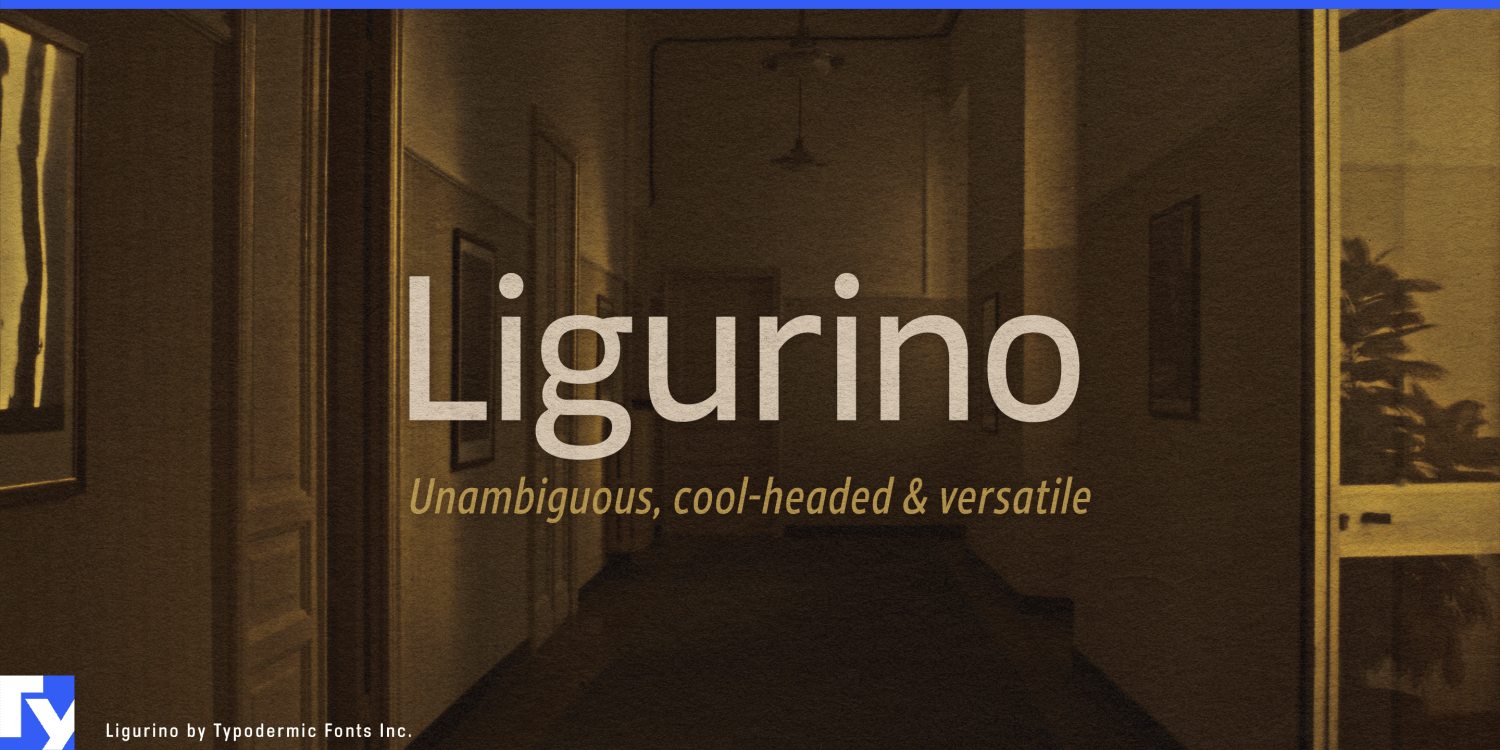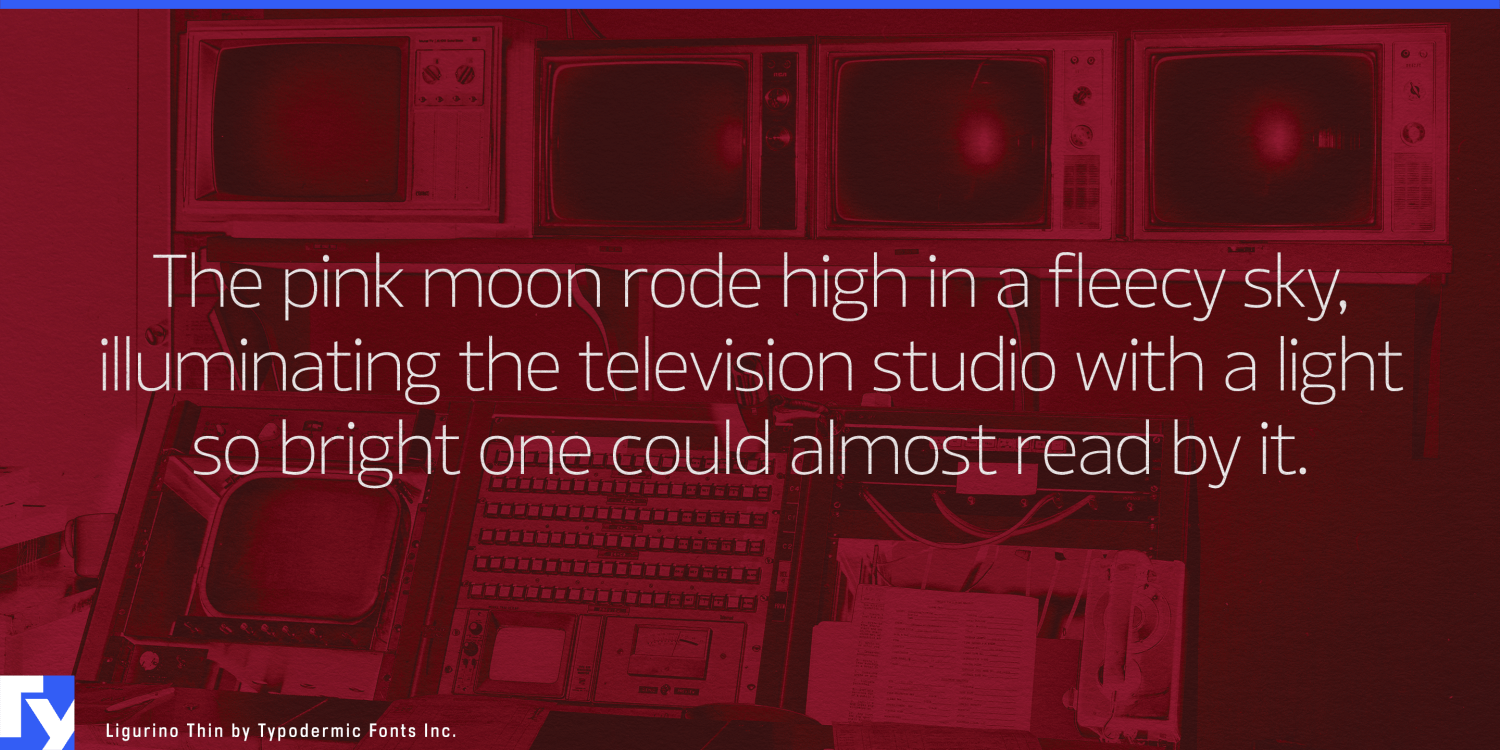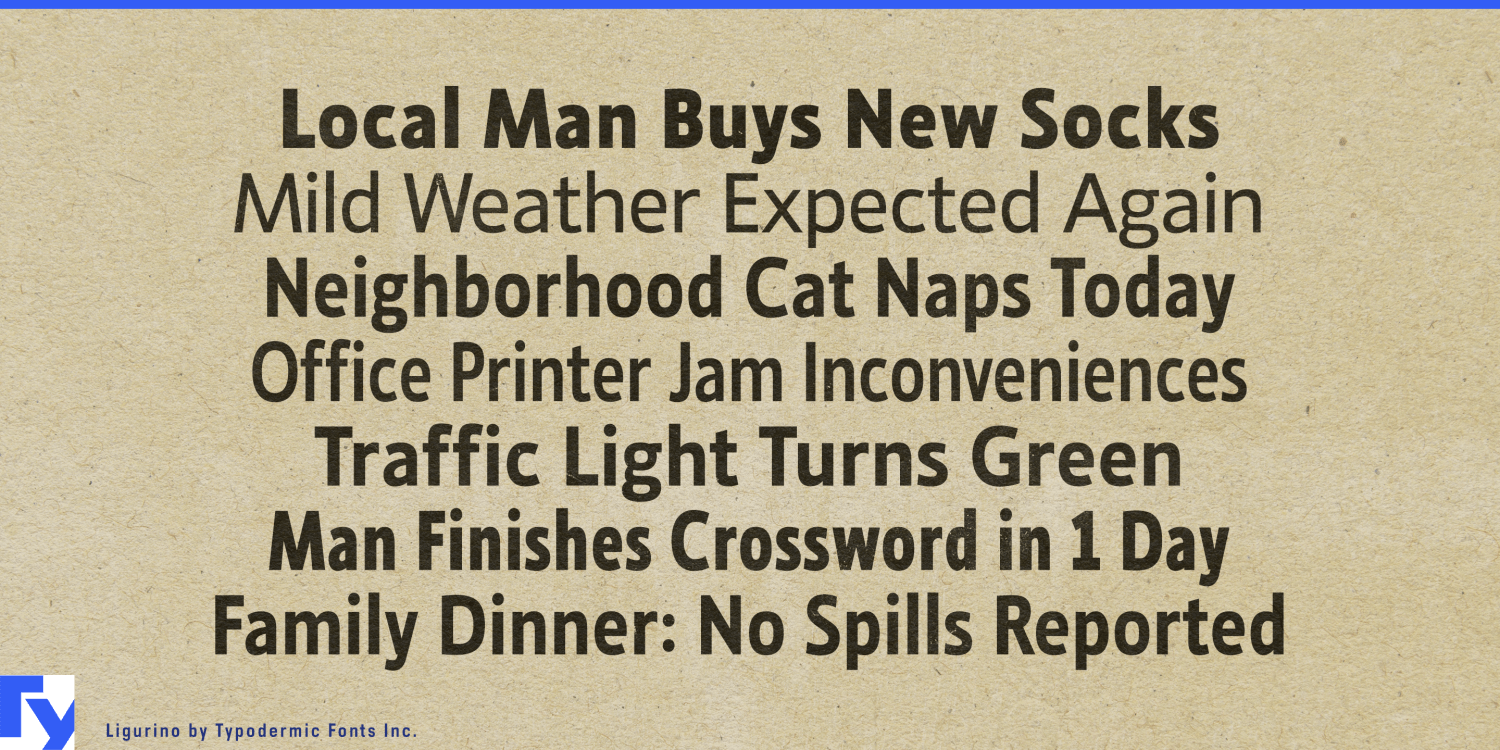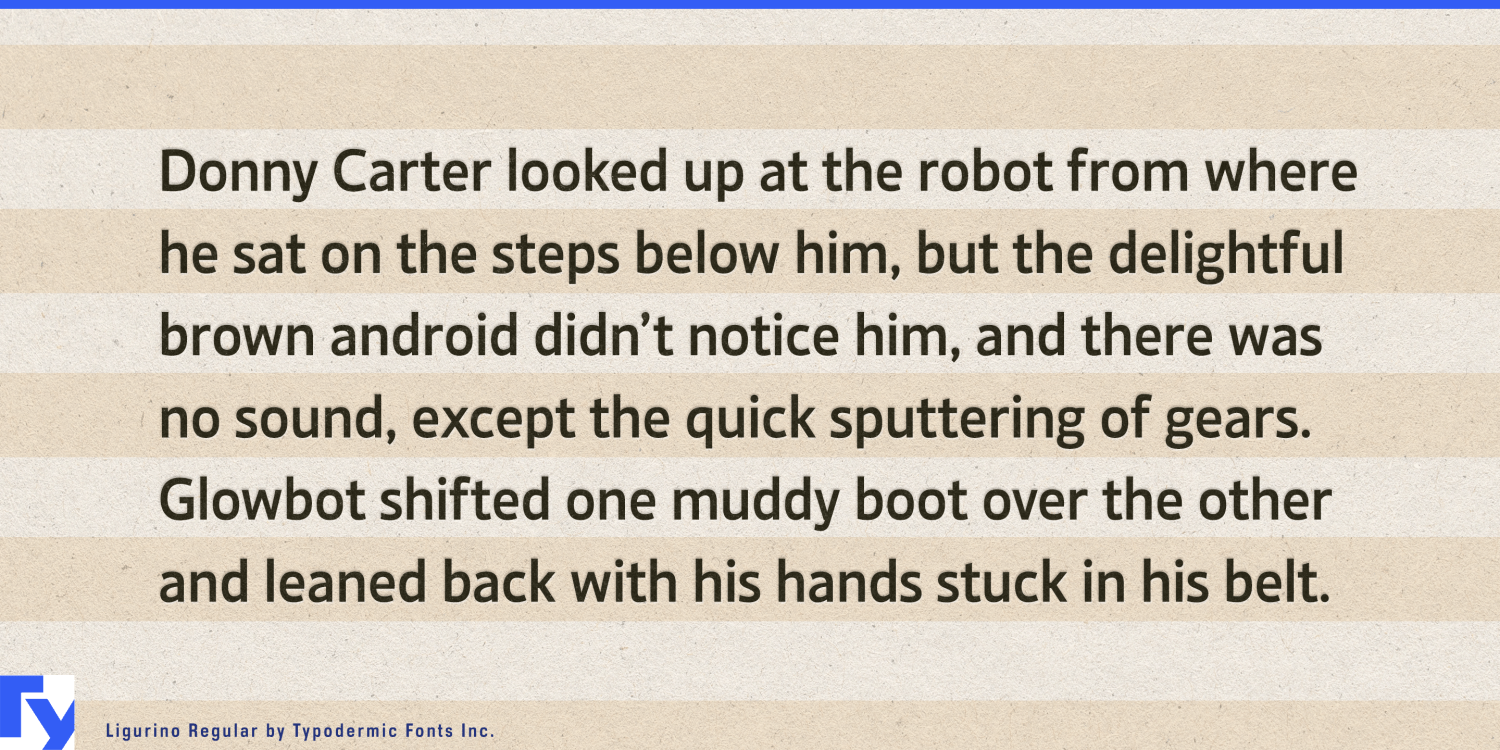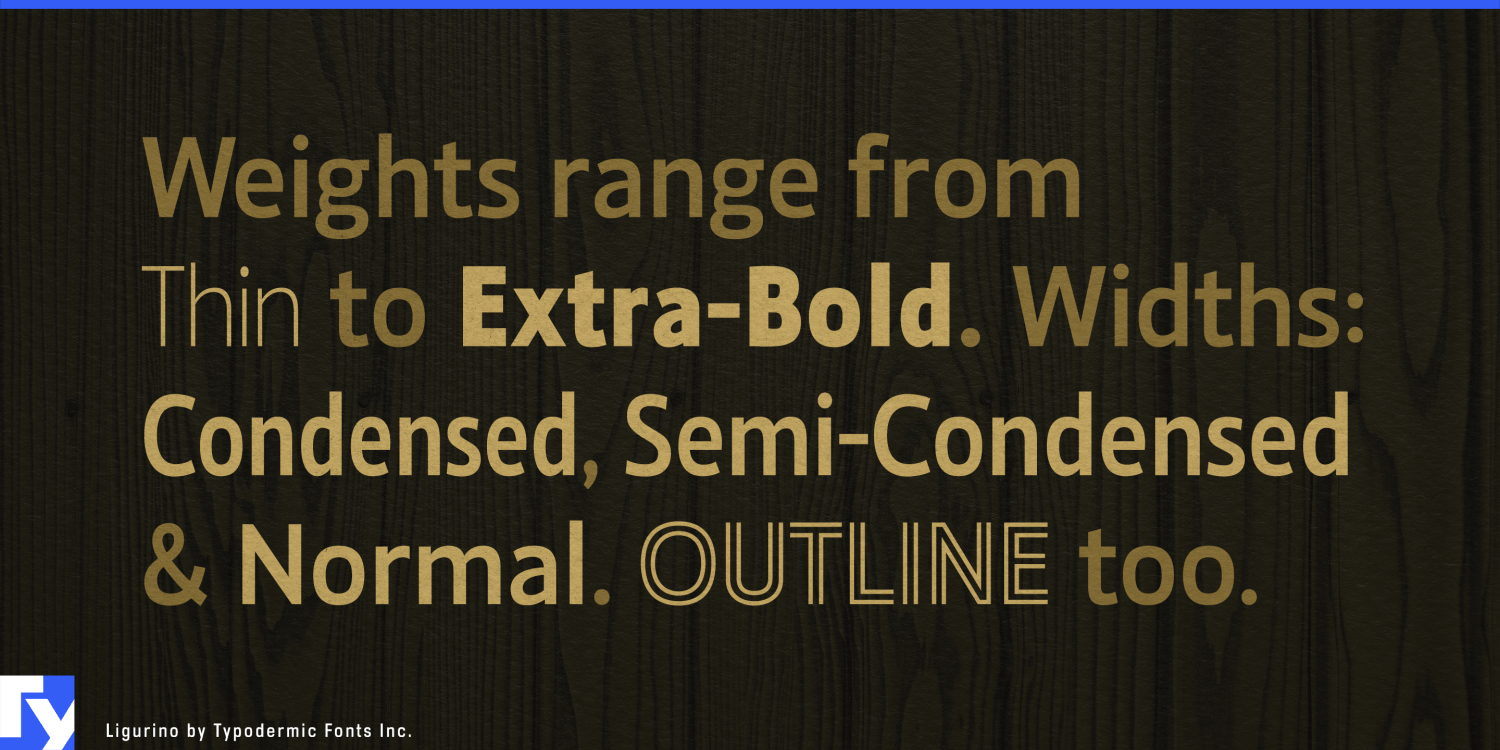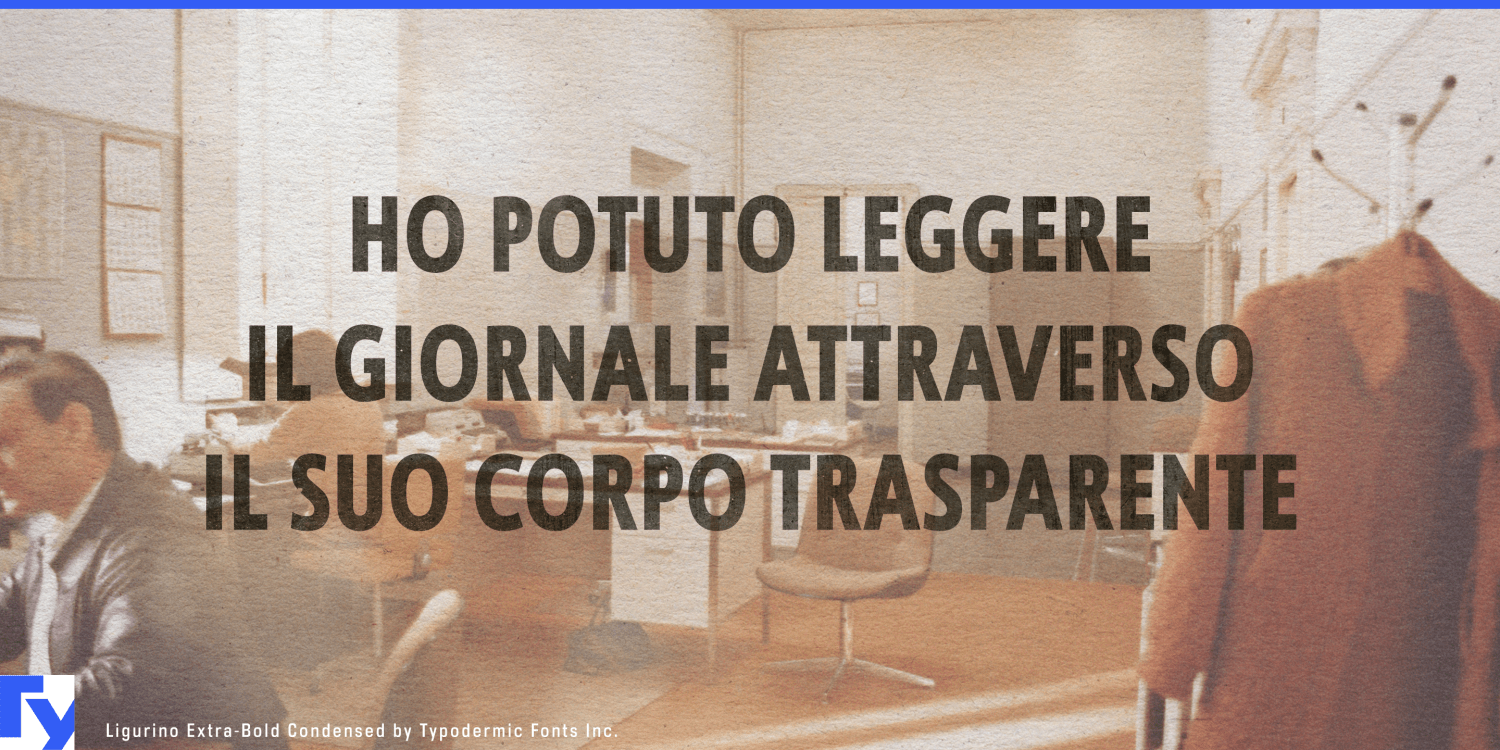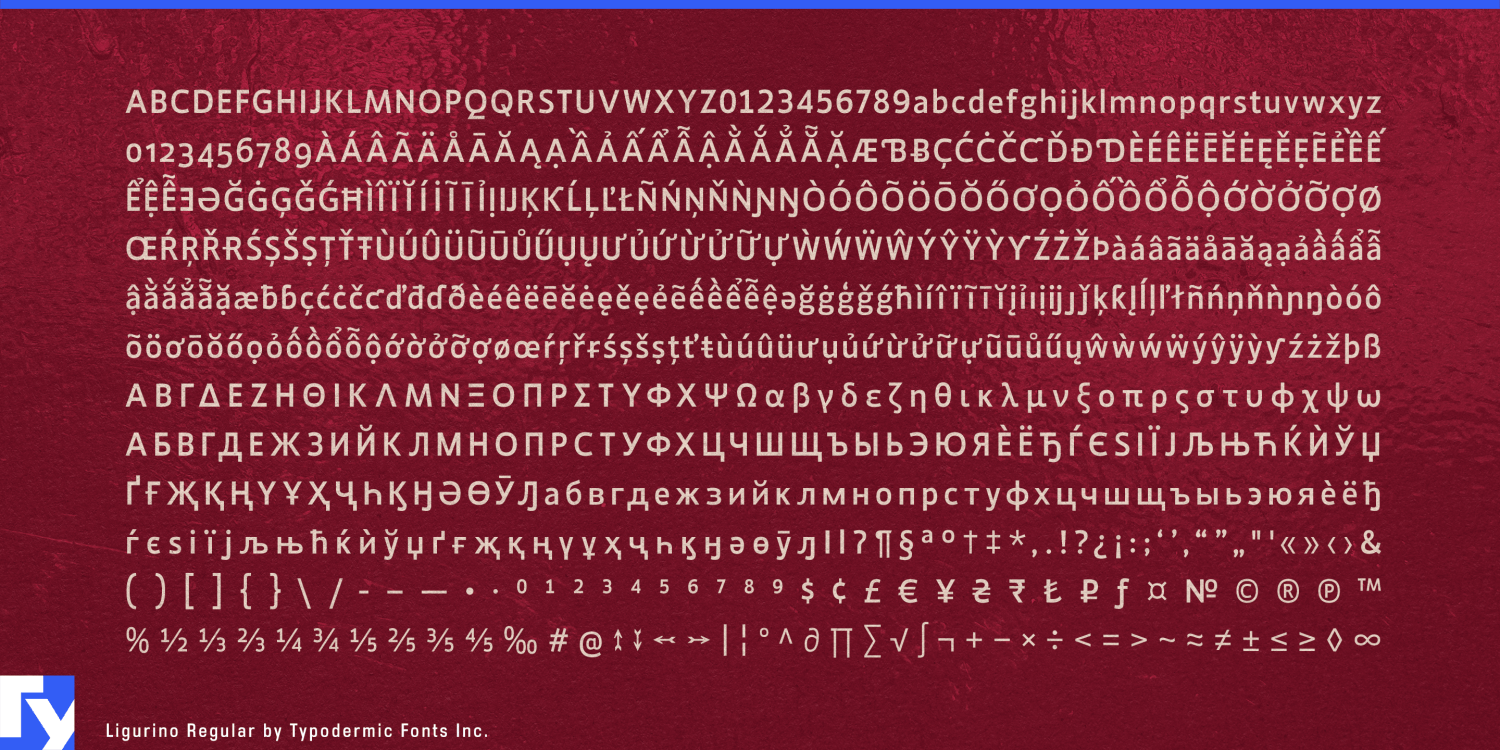
Ligurino
Ligurino is a deliberately familiar humanist sans-serif. Its open apertures, straightforward proportions, and lightly softened forms belong to a typographic language long used in public information, corporate communication, publishing, and institutional design. It does not ask the reader to learn a new visual vocabulary, and that can be exactly what a project needs.
The family is most useful when typography has a lot of ordinary work to do. University prospectuses, conference programmes, employee handbooks, annual reports, municipal information, and other documents often contain running text, headings, schedules, captions, tables, directories, and long department names competing for space. Ligurino’s Normal, Semi-Condensed, and Condensed widths let those elements tighten or relax without making the publication look as though it has switched typefaces halfway through.
That range is especially useful when the dimensions are already fixed. A narrow programme column, complicated schedule, chart heading, form, or information panel may simply need less horizontal type. Semi-Condensed makes a modest adjustment; Condensed makes a substantial one, while remaining recognizably part of the same system.
Ligurino also works as the deliberately quiet half of a stronger identity. A distinctive logo, expressive headline face, illustration system, or dramatic photography may already provide all the personality a brand needs. Ligurino can handle explanatory copy, captions, secondary headings, specifications, and supporting information without beginning another visual argument. Engineering firms, professional organizations, equipment suppliers, logistics companies, financial services, and other business-to-business organizations are natural settings for that role.
Its familiarity can also help with fictional or historical graphics set around the mid-2000s. Corporate brochures, training materials, office posters, institutional websites, and conference programmes from that period often need something more convincing than the spectacular chrome-and-pixel version of “Y2K.” Released in 2005, Ligurino belongs naturally to the quieter graphic environment of the era: clean sans-serif typography intended to look current without becoming the subject of the design.
There are more distinctive humanist sans-serifs, and there are famous workhorses with decades of institutional history behind them. Ligurino’s appeal is simpler. It provides a broad set of widths and weights in a comfortably familiar voice, for projects where changing the typeface should not look like changing the typeface.